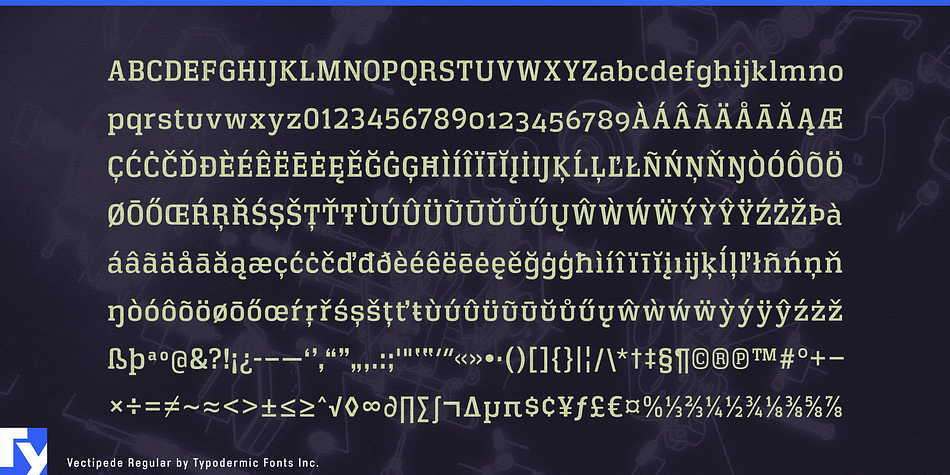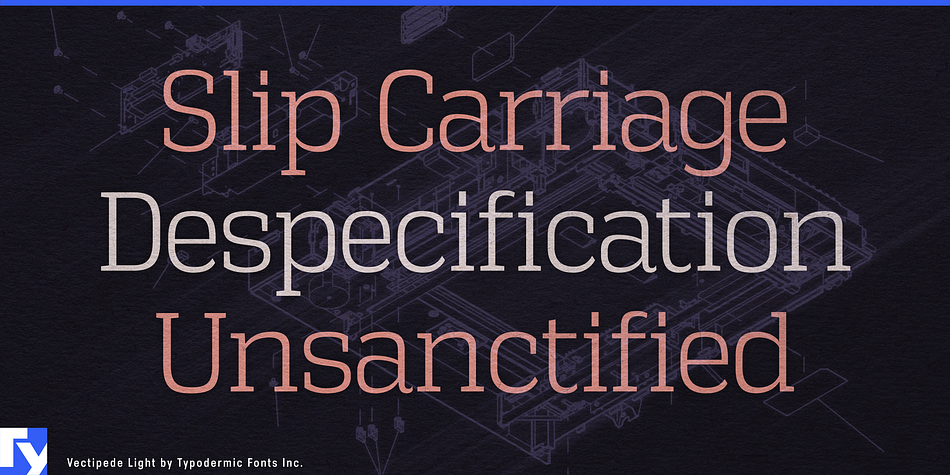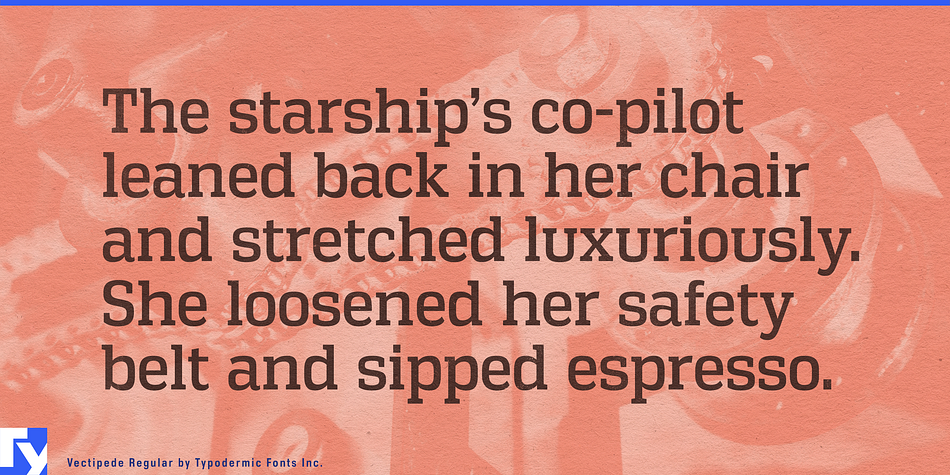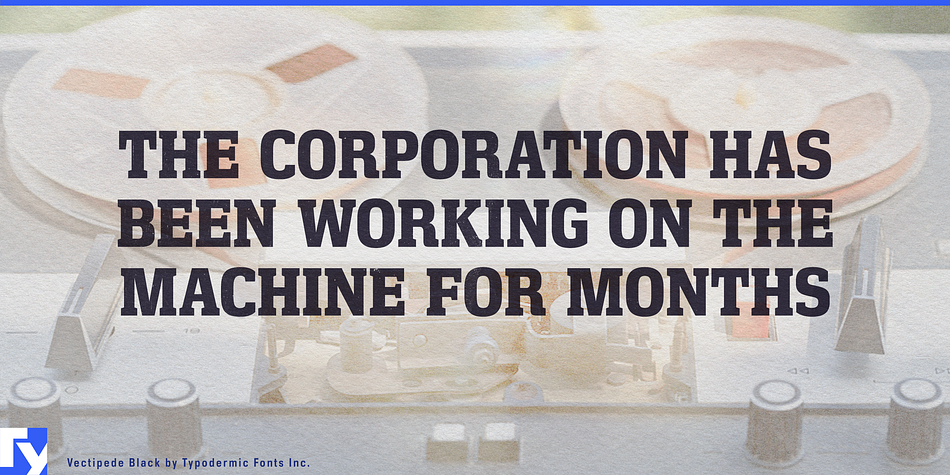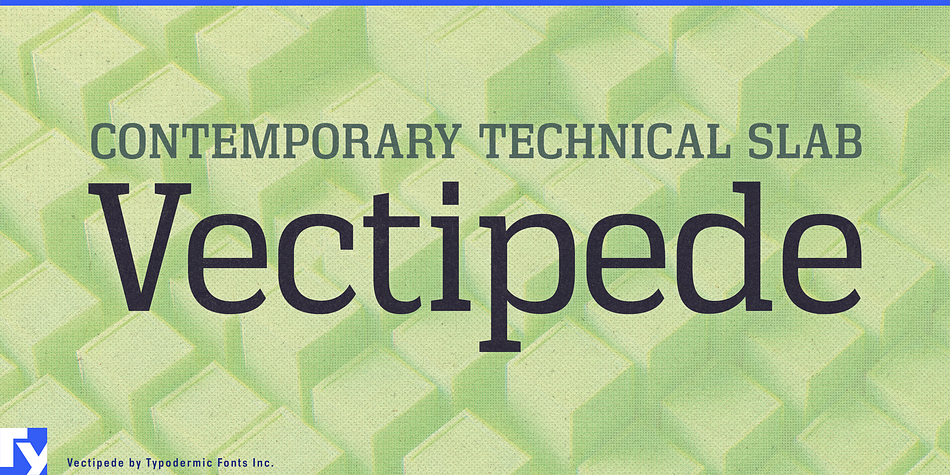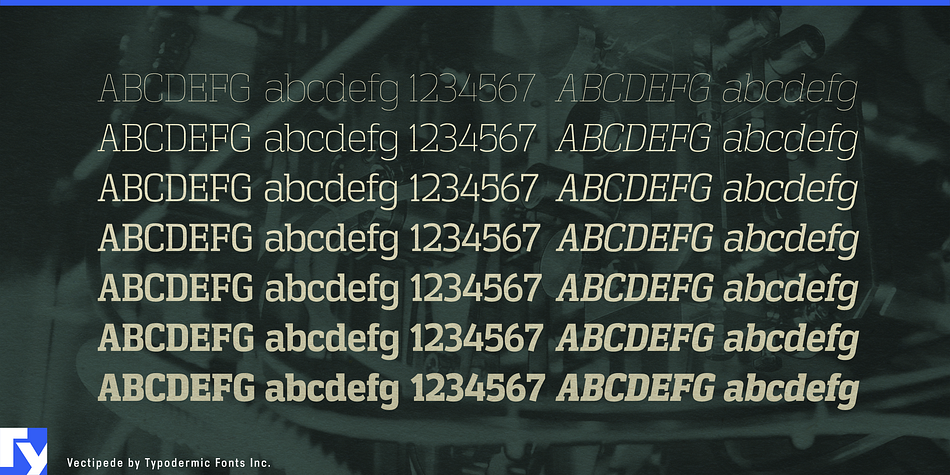
Vectipede is a slab serif font family. This typeface has fourteen styles and was published by Typodermic Fonts Inc.
Vectipede is a contemporary technical slab with a crisp, square voice. Includes numeric ordinals and old-style numerals.